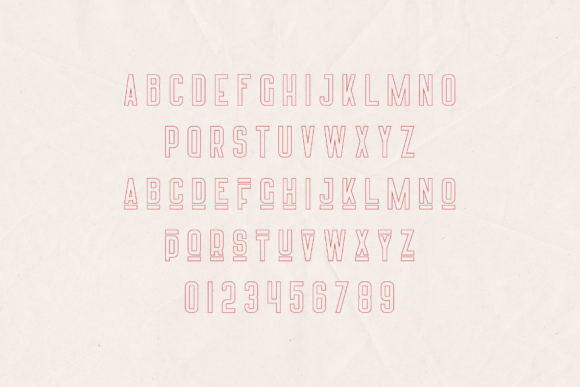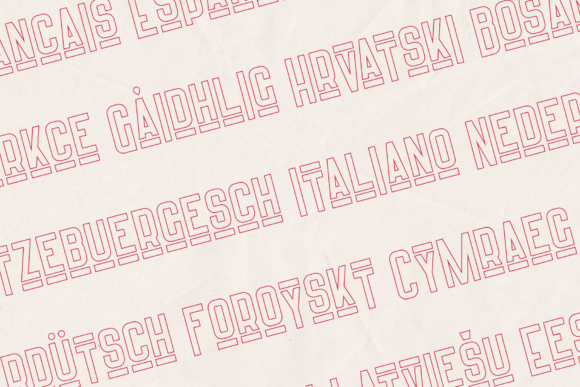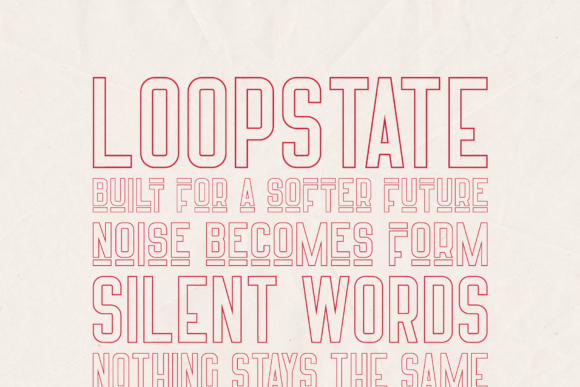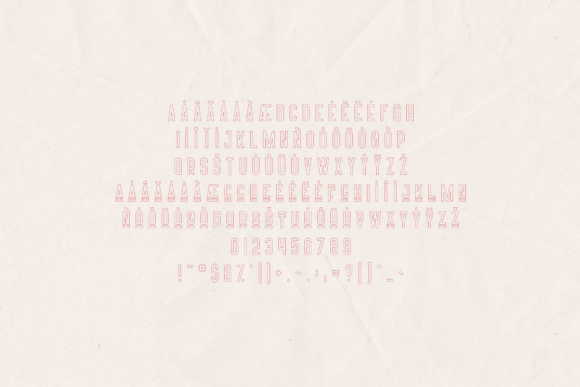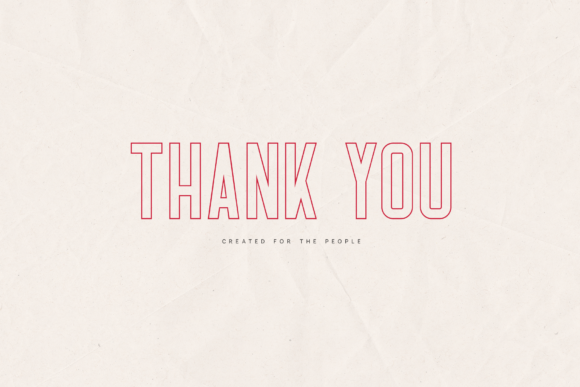
Introducing Harrison Font: A Bold Modern Display Typeface
In the world of typography, a well-designed font can make all the difference in conveying a message effectively. For designers and crafters looking for a bold and modern display typeface, Harrison Font is an excellent choice. With its clean outline construction and strong geometric proportions, Harrison is perfect for large-scale typography where impact and readability are essential.
Design and Features of Harrison Font
Harrison Font was designed with a focus on creating a bold yet lightweight typeface. Its outlined structure allows the letters to remain bold and striking, while also maintaining a sense of airiness and elegance. This makes it an ideal choice for posters, headlines, branding systems, and contemporary graphic design. The font’s strong vertical rhythm and modern industrial character give it a unique and sophisticated look that works beautifully in both minimal layouts and expressive typographic compositions.
Key Benefits of Using Harrison Font
- Impact and Readability: Harrison Font is designed for large-scale typography, making it perfect for projects where the text needs to stand out and be easily readable.
- Versatility: The font’s clean outline construction and strong geometric proportions make it suitable for a wide range of design applications, from posters and headlines to branding systems and graphic design.
- Modern and Industrial Look: Harrison Font’s strong vertical rhythm and modern industrial character give it a unique and sophisticated look that is perfect for contemporary design projects.
- Bold yet Lightweight: The outlined structure of the font allows the letters to remain bold yet lightweight, making it easy to use in a variety of design contexts.
Uses of Harrison Font
Harrison Font is a versatile typeface that can be used in a variety of design projects, including:
- Posters and Flyers: The font’s bold and modern look makes it perfect for creating eye-catching posters and flyers.
- Headlines and Titles: Harrison Font is ideal for use in headlines and titles, where its strong geometric proportions and clean outline construction can make a big impact.
- Branding Systems: The font’s modern industrial character and versatility make it suitable for use in branding systems, where consistency and recognition are key.
- Graphic Design: Harrison Font can be used in a wide range of graphic design projects, from business cards and brochures to websites and social media graphics.
Tips for Using Harrison Font Effectively
To get the most out of Harrison Font, here are a few tips to keep in mind:
- Use it for Large-Scale Typography: Harrison Font is designed for large-scale typography, so use it for headlines, titles, and other large text elements.
- Experiment with Colors and Textures: The font’s clean outline construction and strong geometric proportions make it easy to use with a variety of colors and textures.
- Pair it with Other Fonts: Harrison Font can be paired with other fonts to create a unique and visually appealing typographic composition.
In conclusion, Harrison Font is a bold modern display typeface that is perfect for designers and crafters looking for a versatile and impactful font. With its clean outline construction, strong geometric proportions, and modern industrial character, Harrison Font is suitable for a wide range of design applications. Whether you’re creating posters, headlines, branding systems, or graphic design projects, Harrison Font is a great choice.